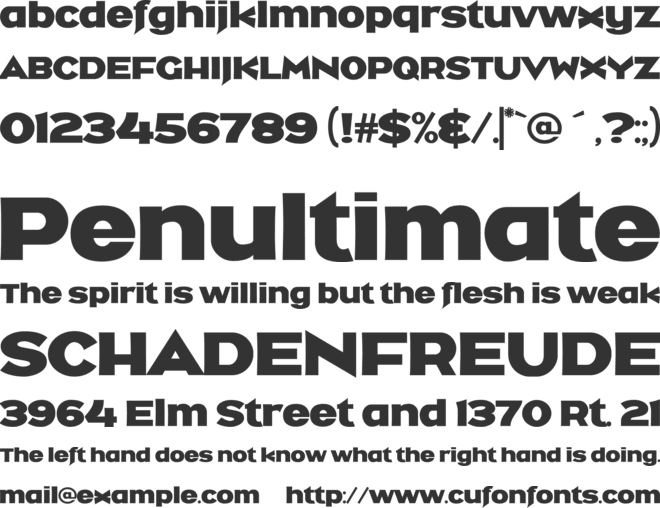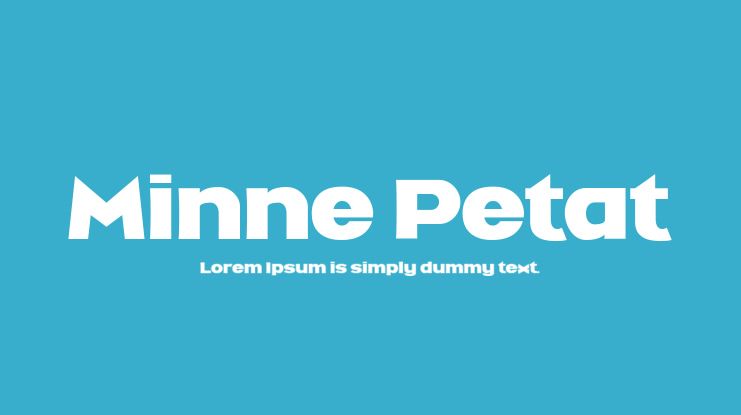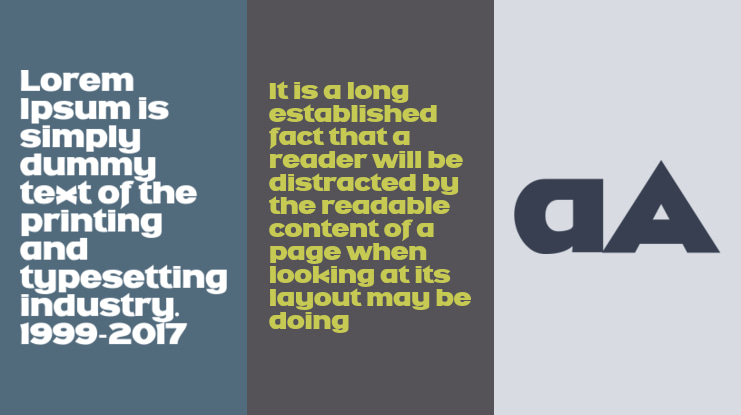
In order to create a vertical sign, I required a bold and prominent letter. As I usually do, I decided to create one myself and I am happy to share it for free, just like I always do. Interestingly, 'Minne Petat' is a regional term used in the eastern part of the Netherlands, which translates to 'shithead'.